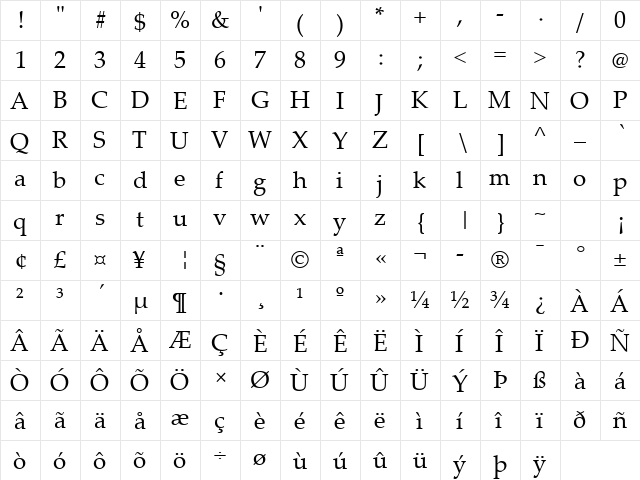
Palatino Linotype Regular
| Foundry | LINOTYPE-HELL AG |
| Designer | Hermann Zapf |
Design Context for Palatino Linotype Typeface
Palatino Linotype takes a measured approach to typography — its balanced proportions and neutral character make it a reliable workhorse for both digital and print work.
Pro Tip: Pair Palatino Linotype with a font of contrasting weight or personality to build a more expressive typographic hierarchy.